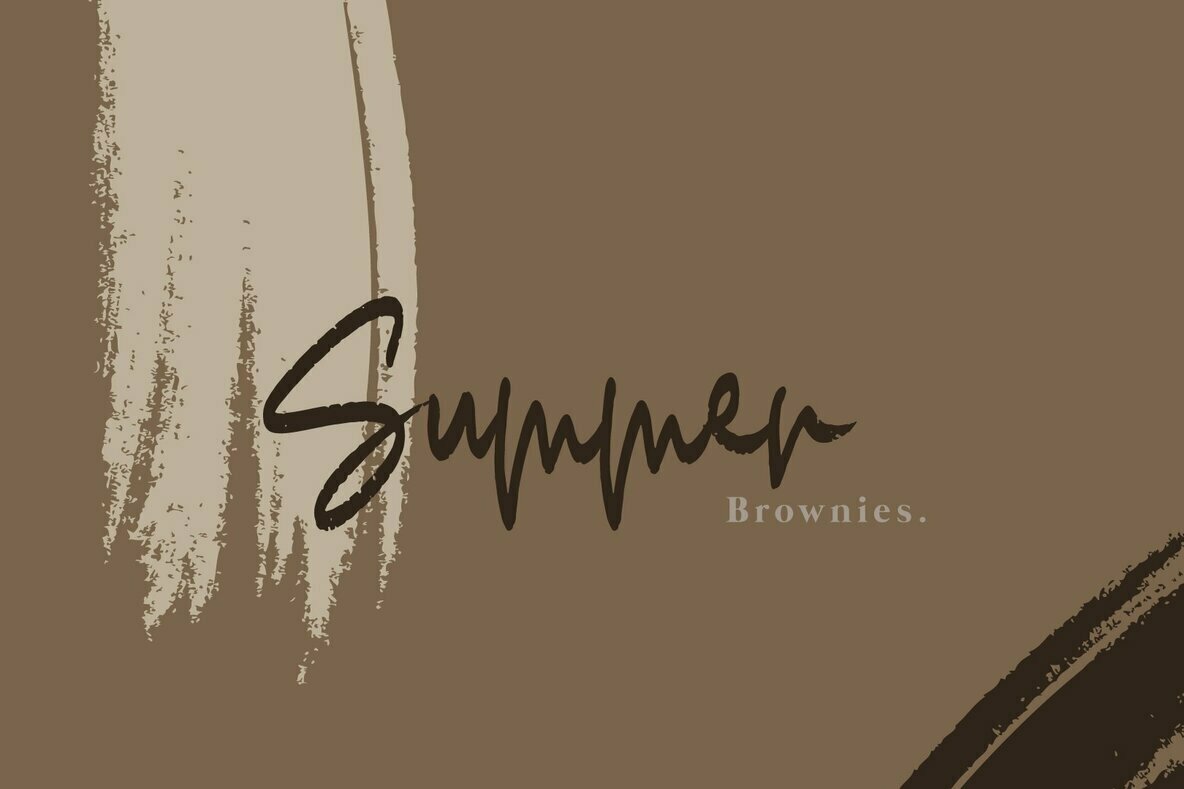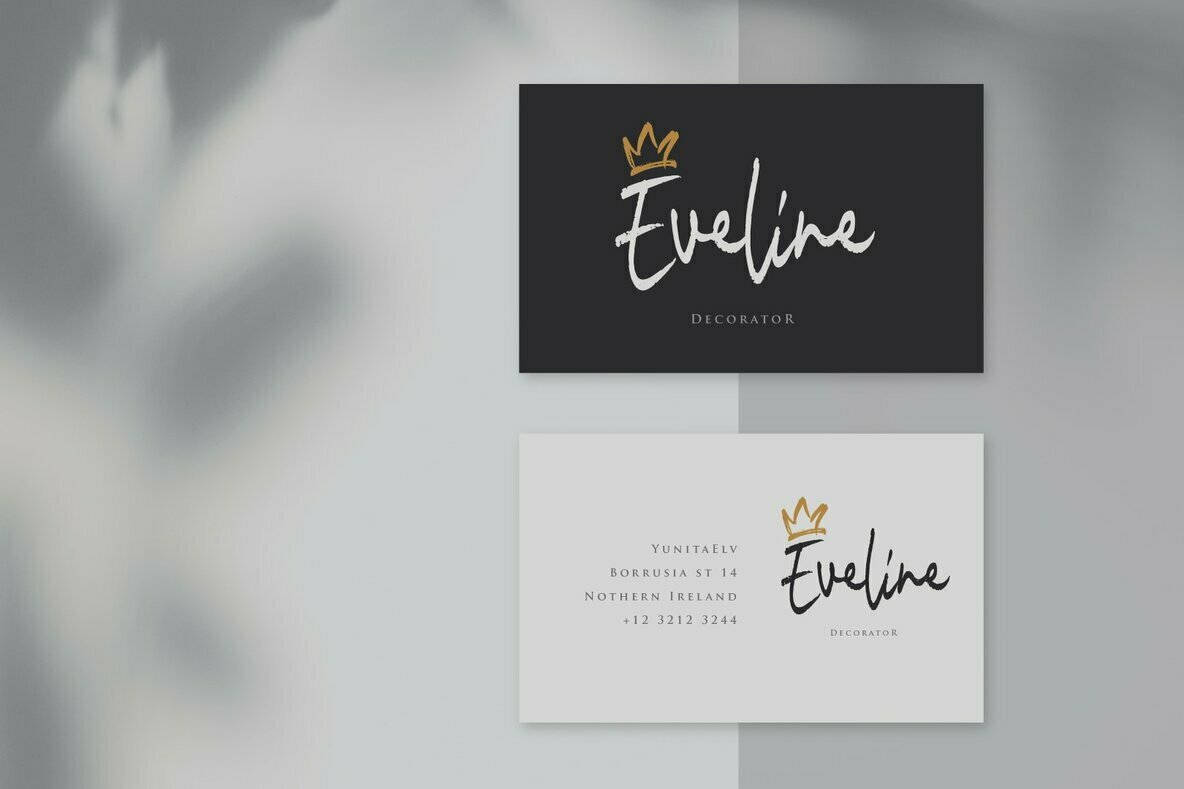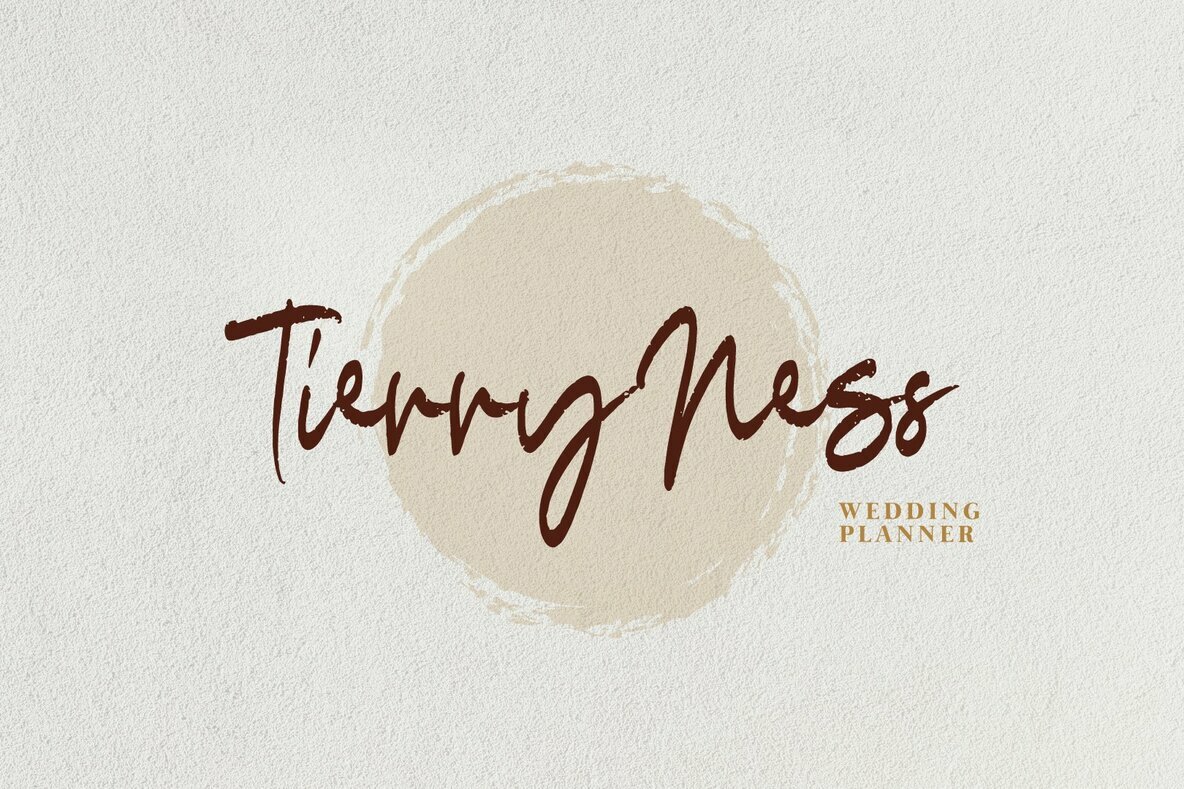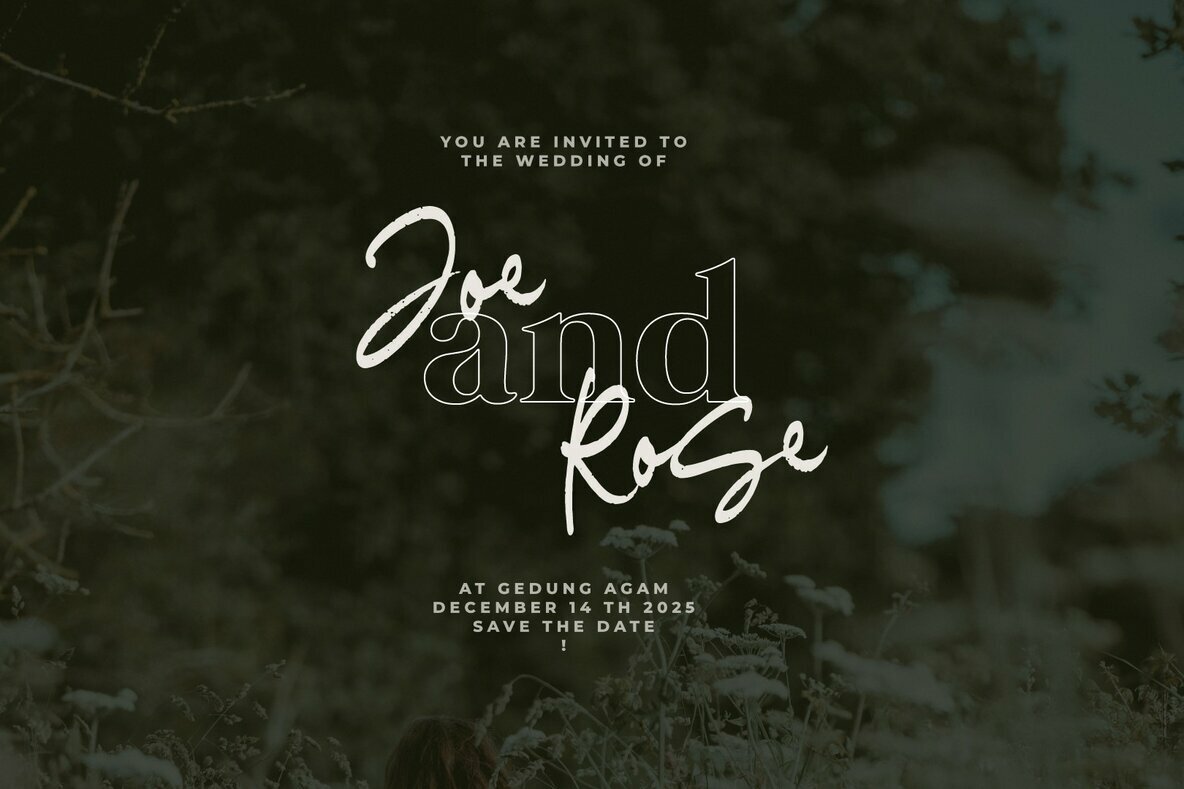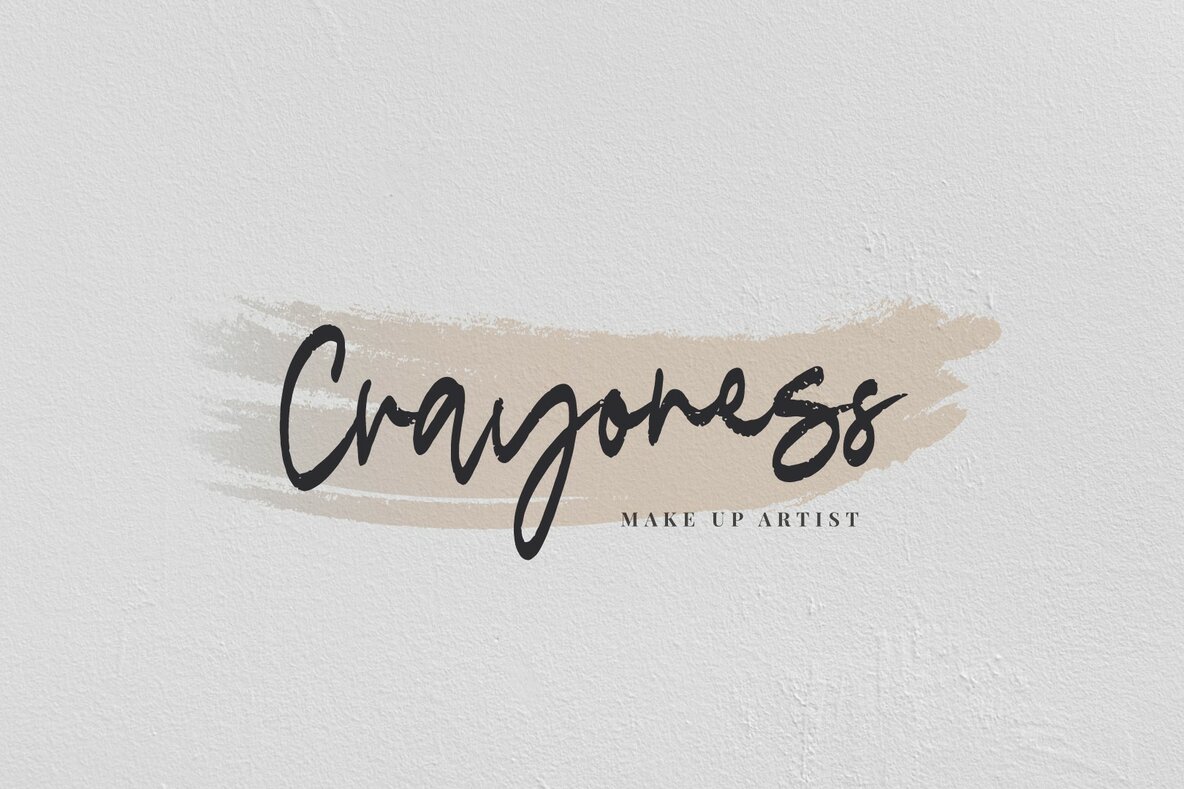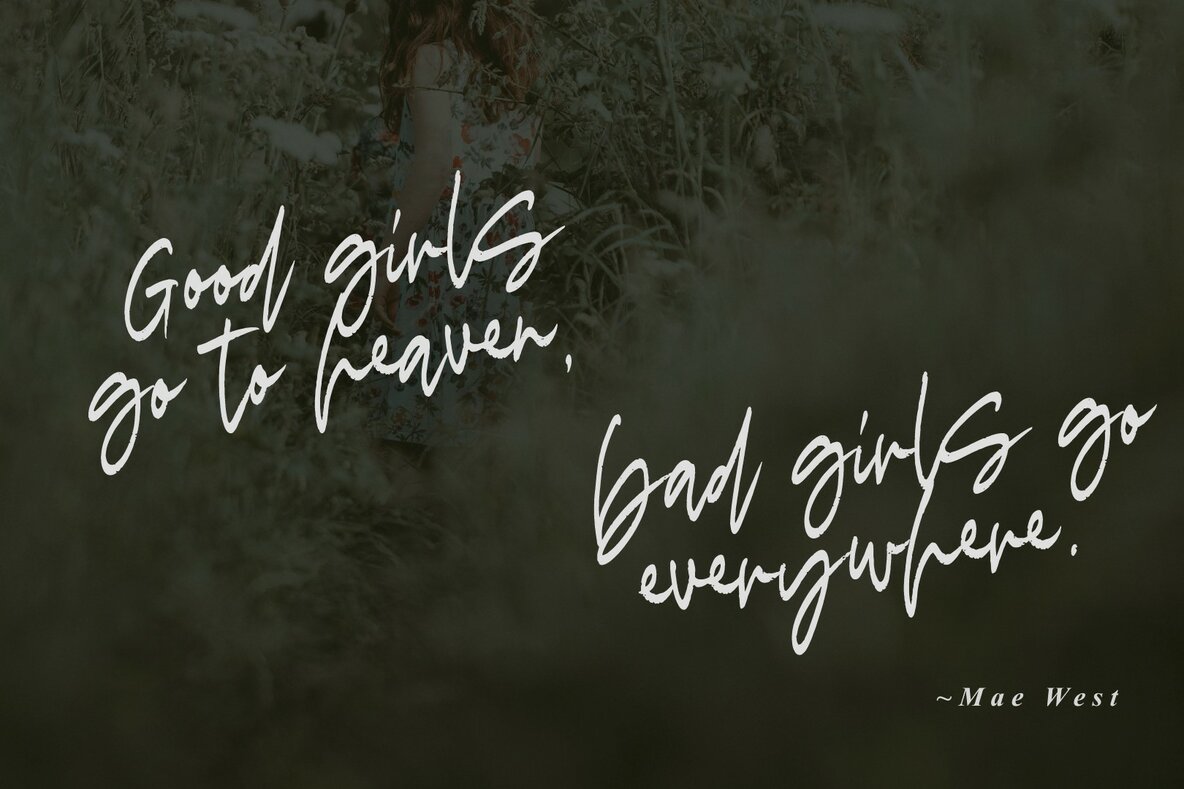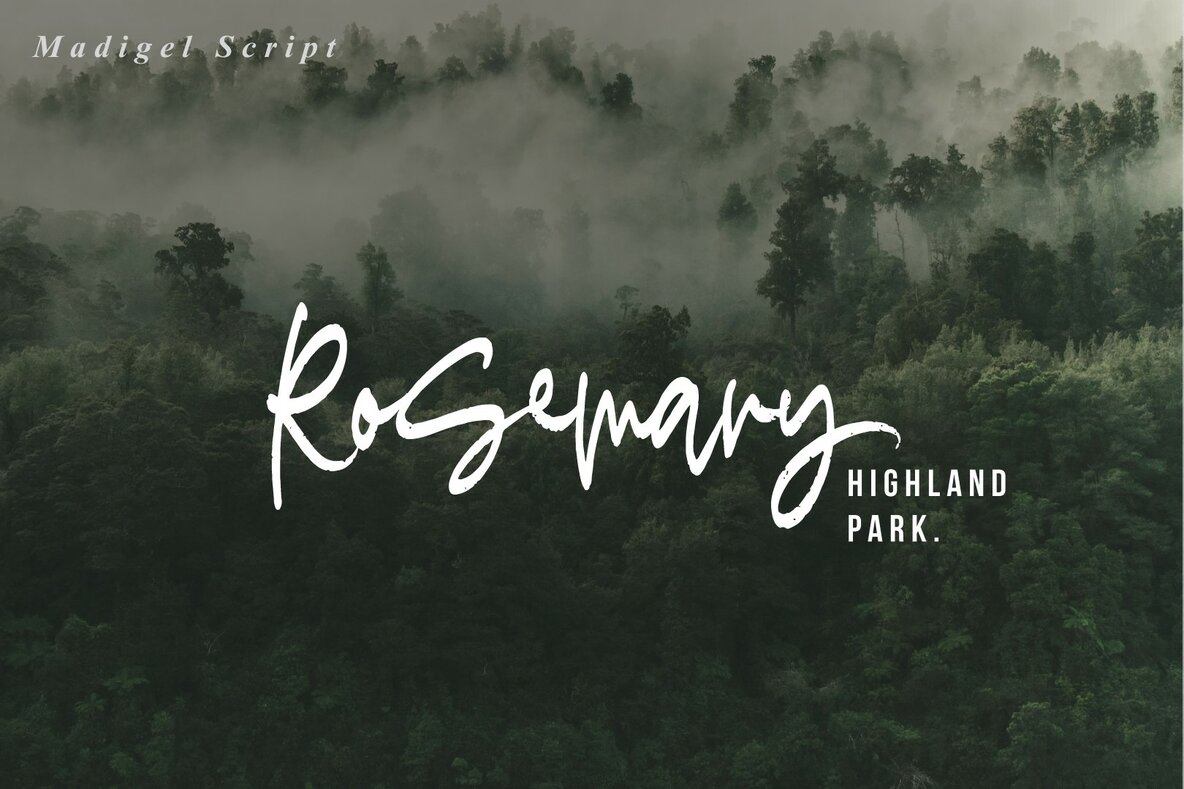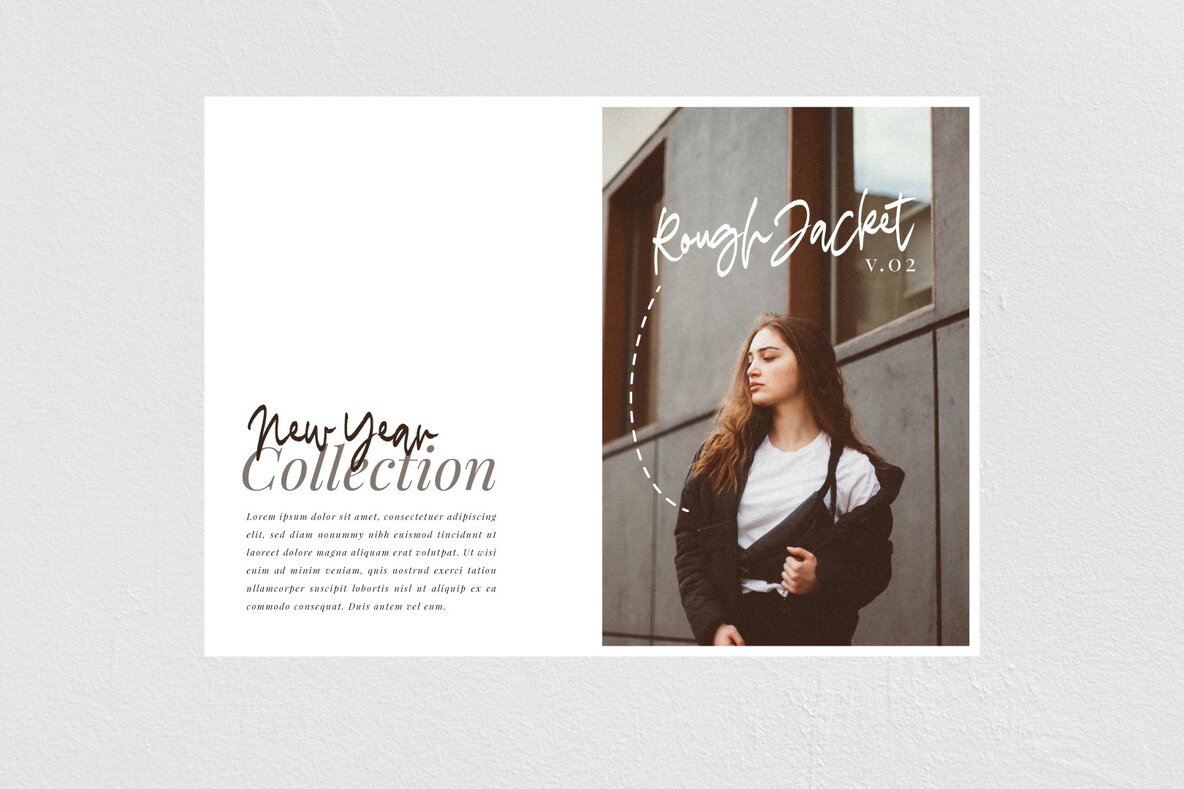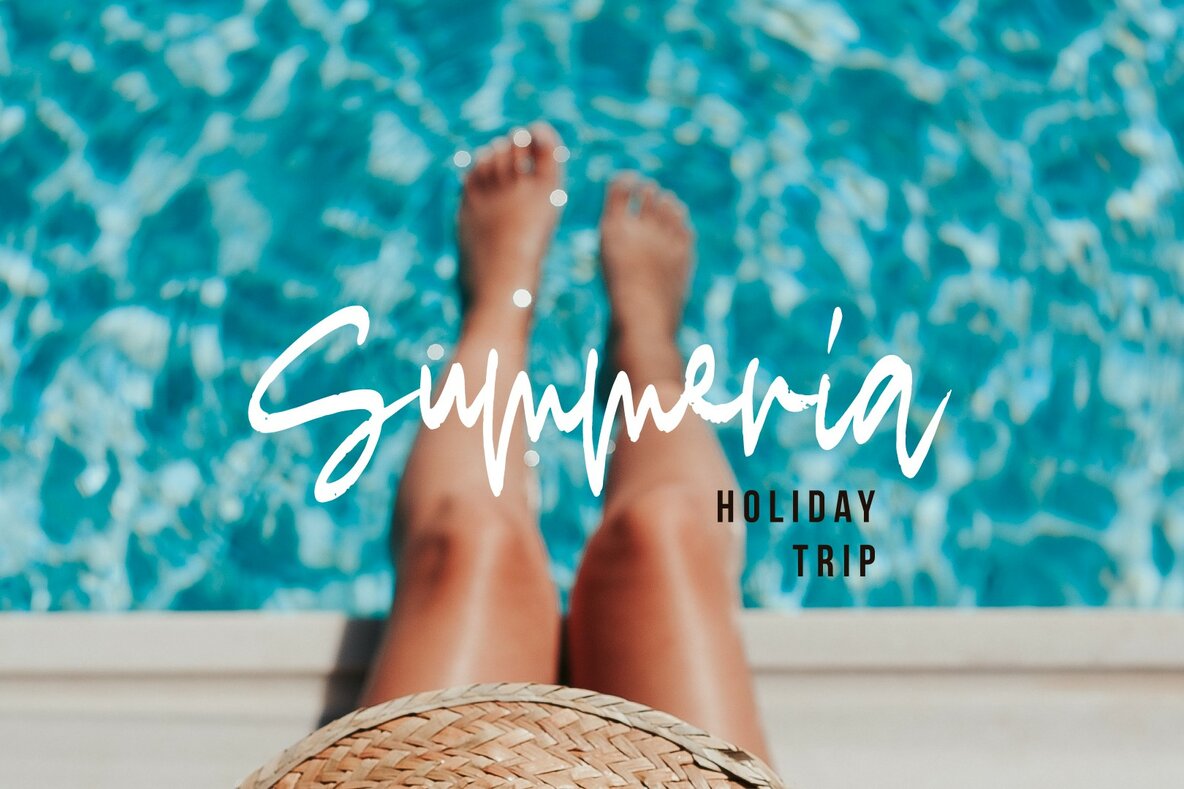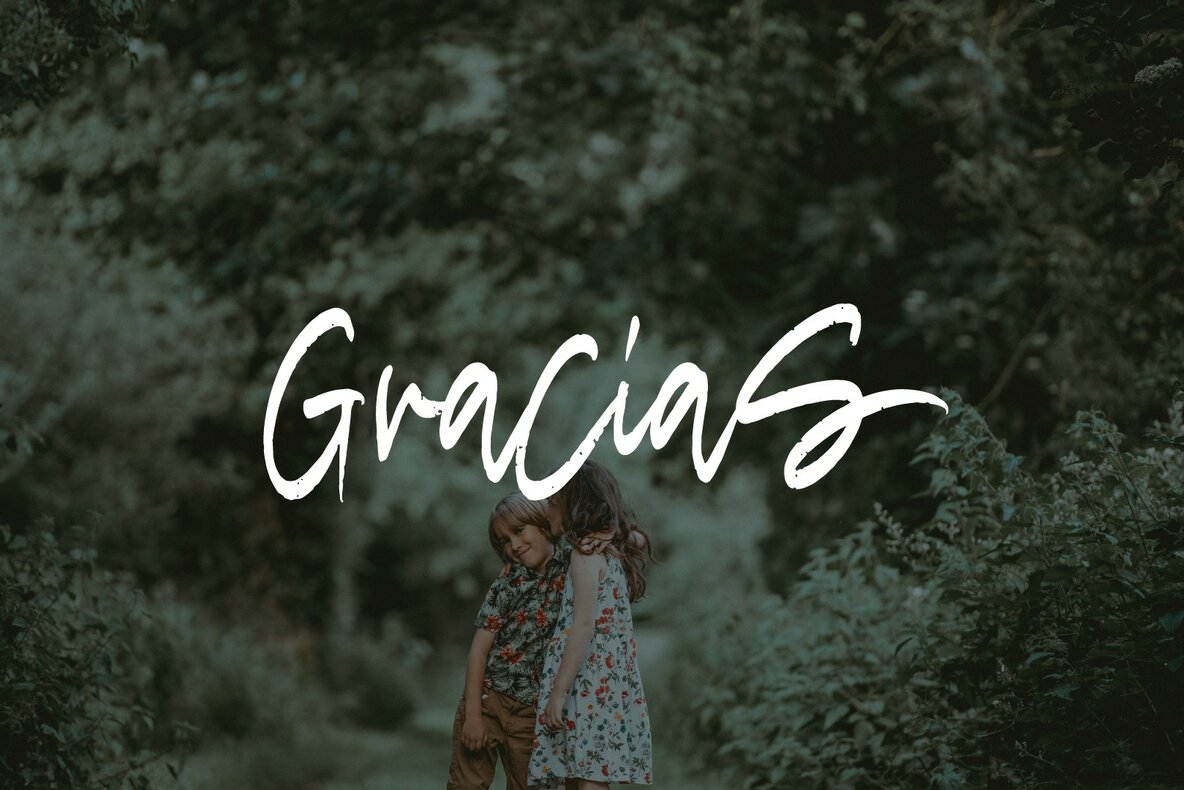
Madigel Font
Madigel, a creation that embodies casual elegance, offers a delightful handwritten aesthetic perfect for a multitude of design endeavors. Whether you're crafting a logo or curating the aesthetic of a wedding invitation, Madigel provides an organic touch that adds a personal feel to every project.Madigel: Casual Handwritten Font for Versatile Appeal